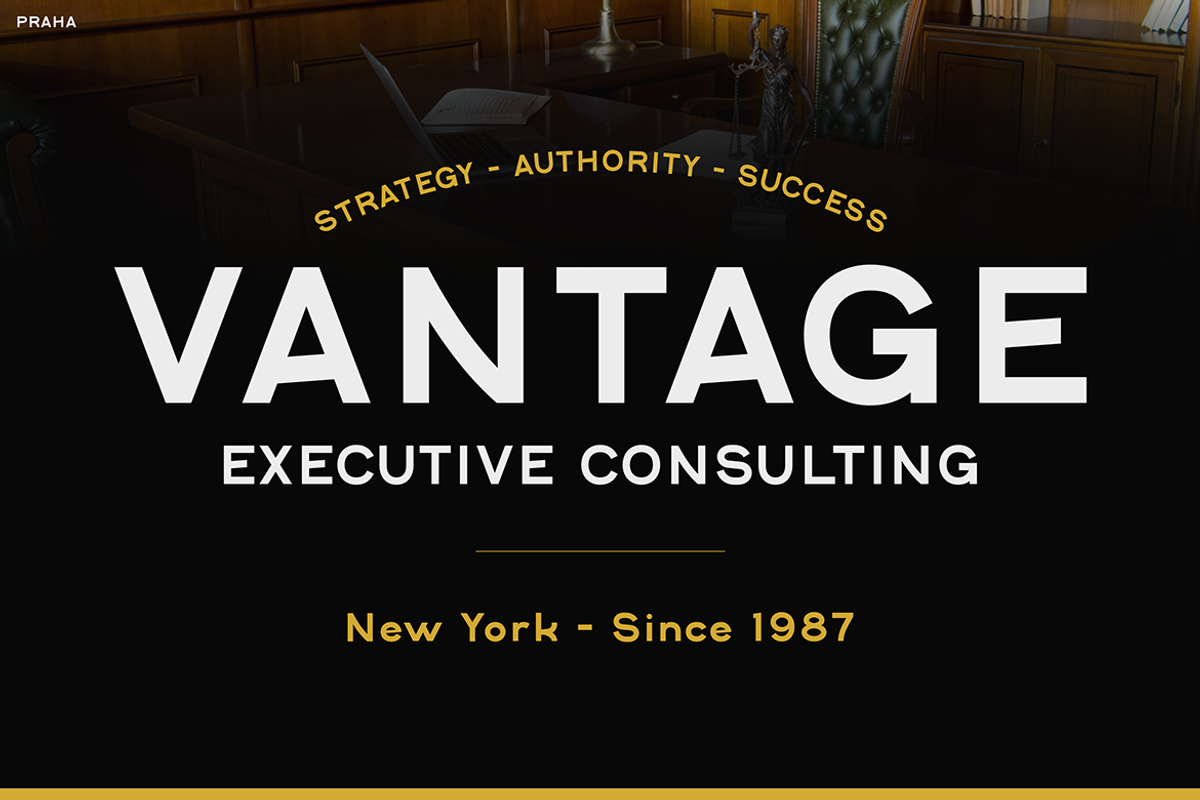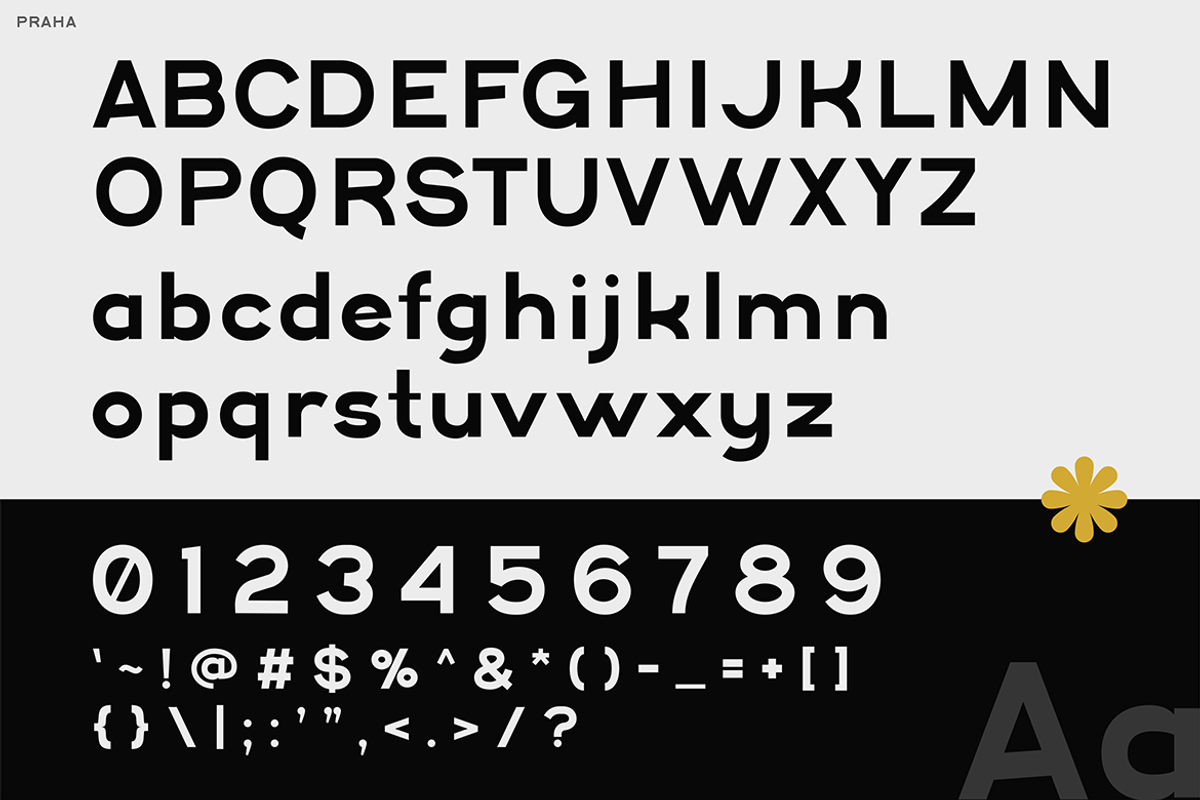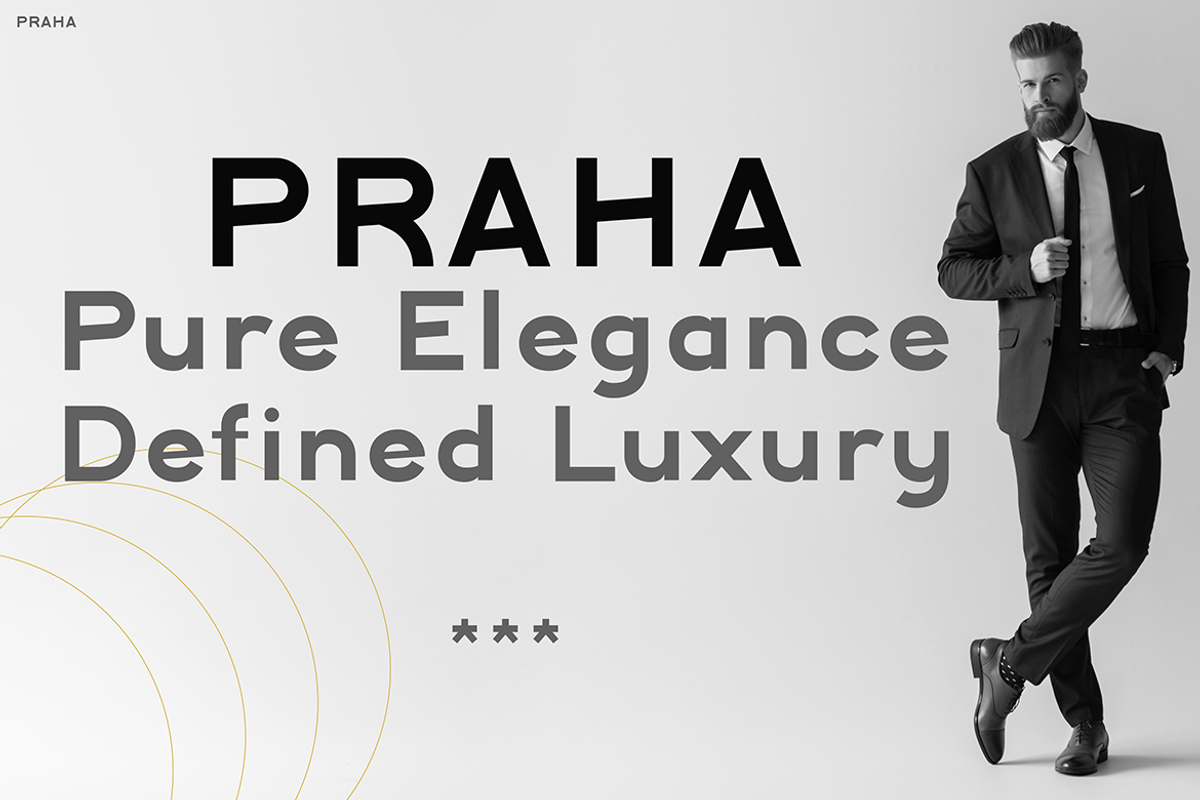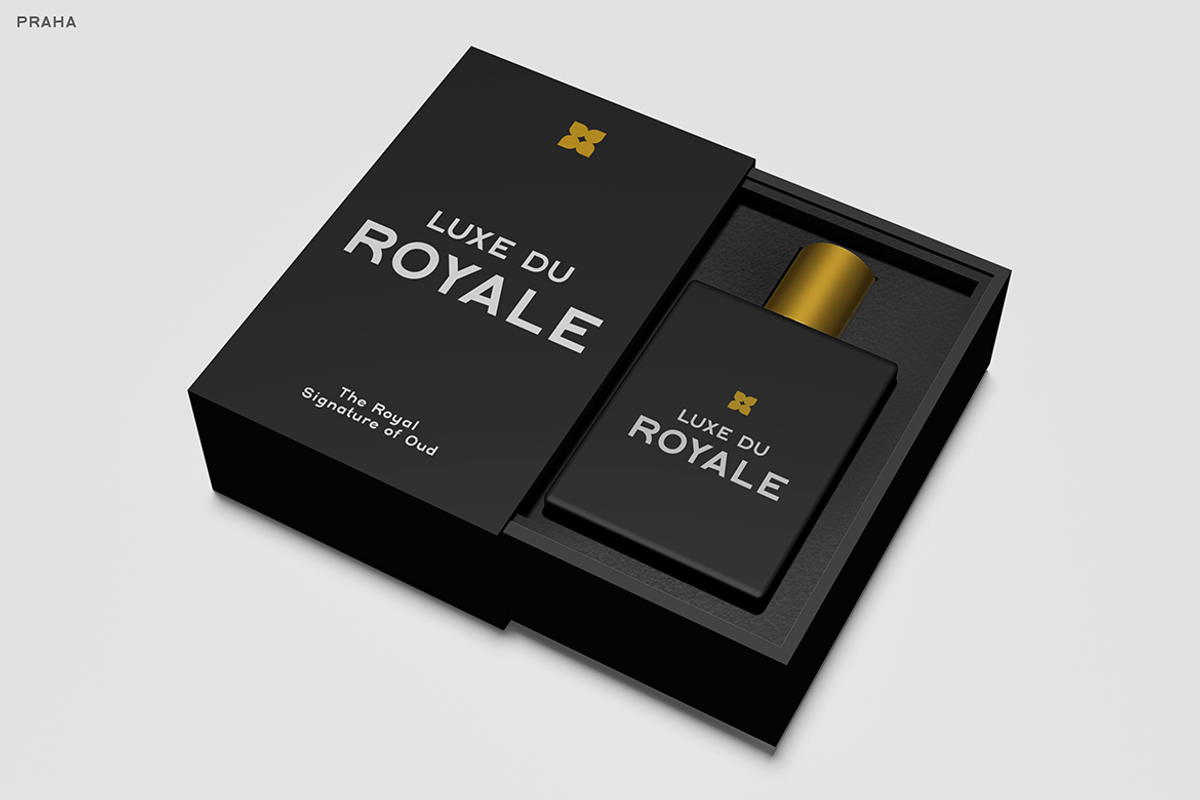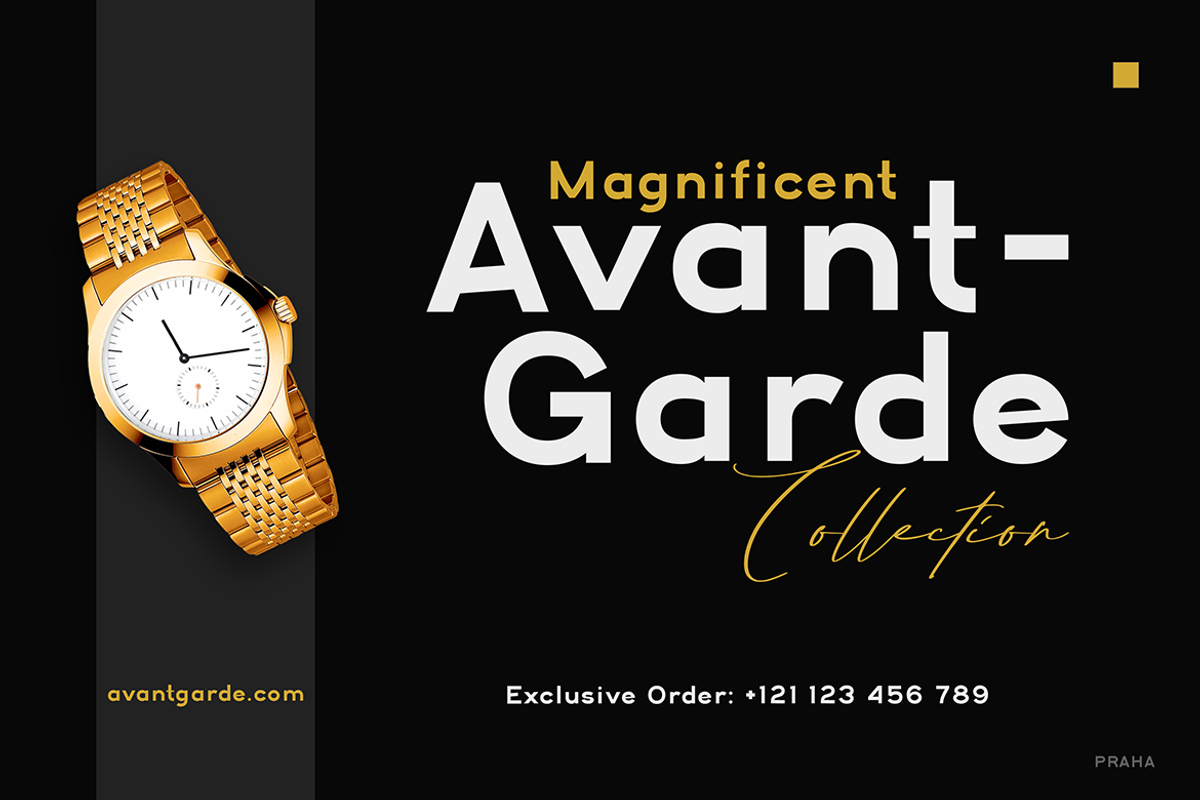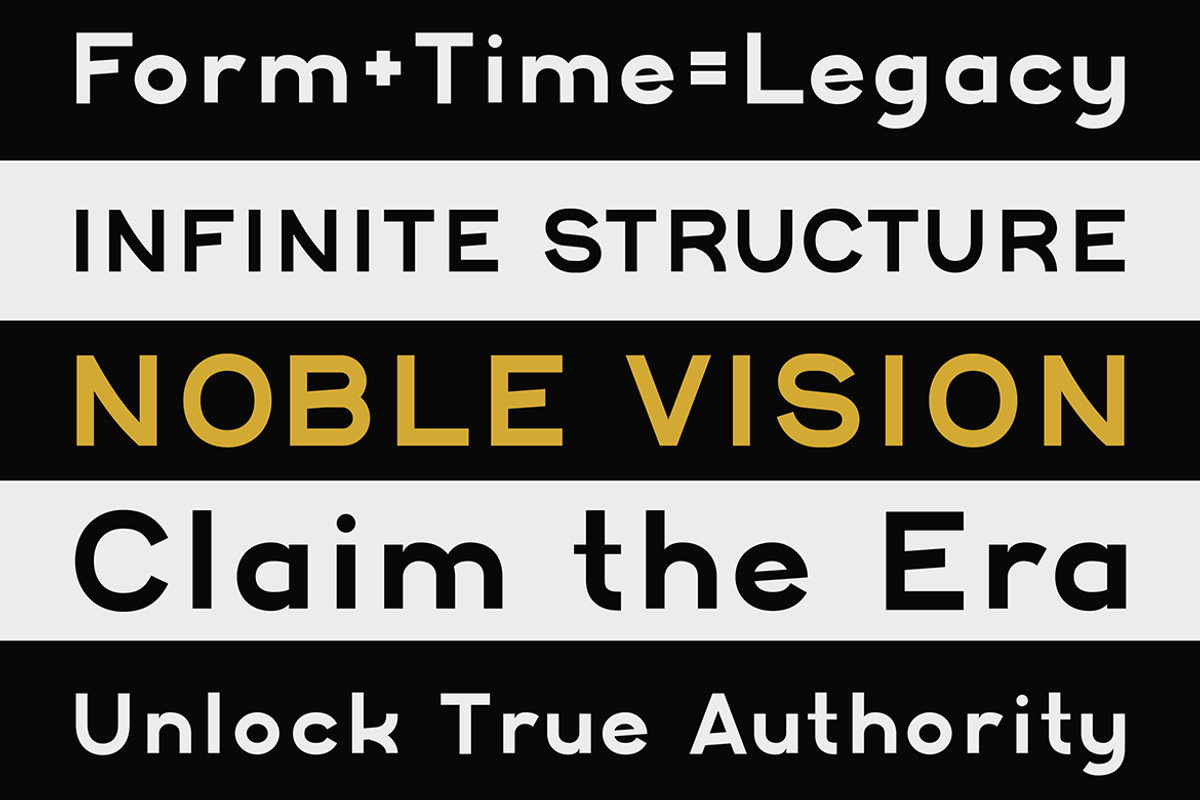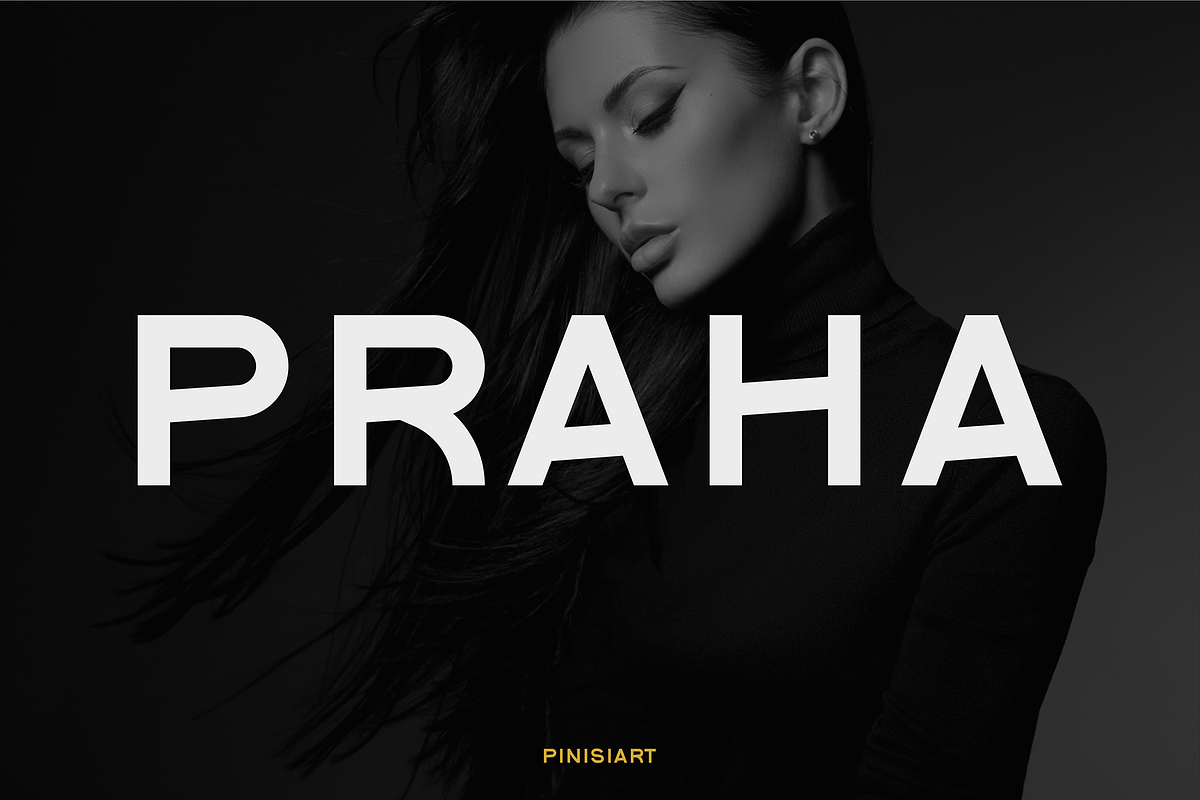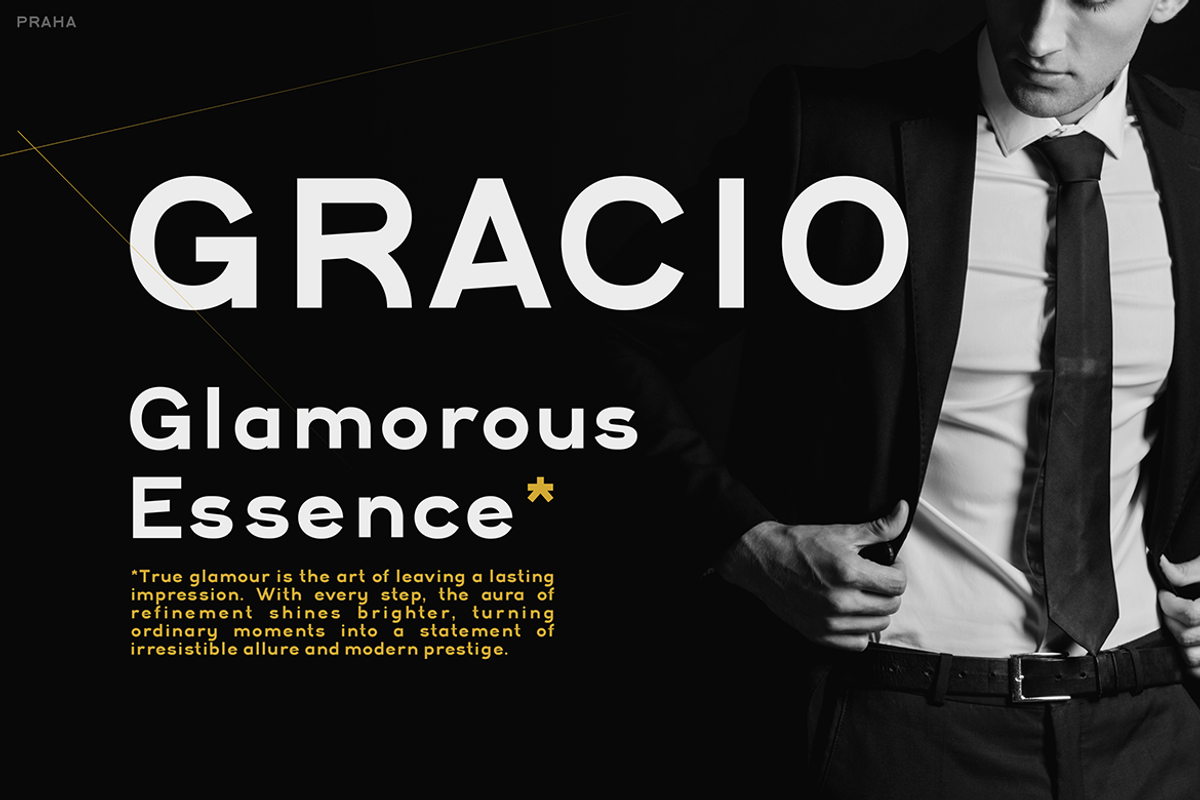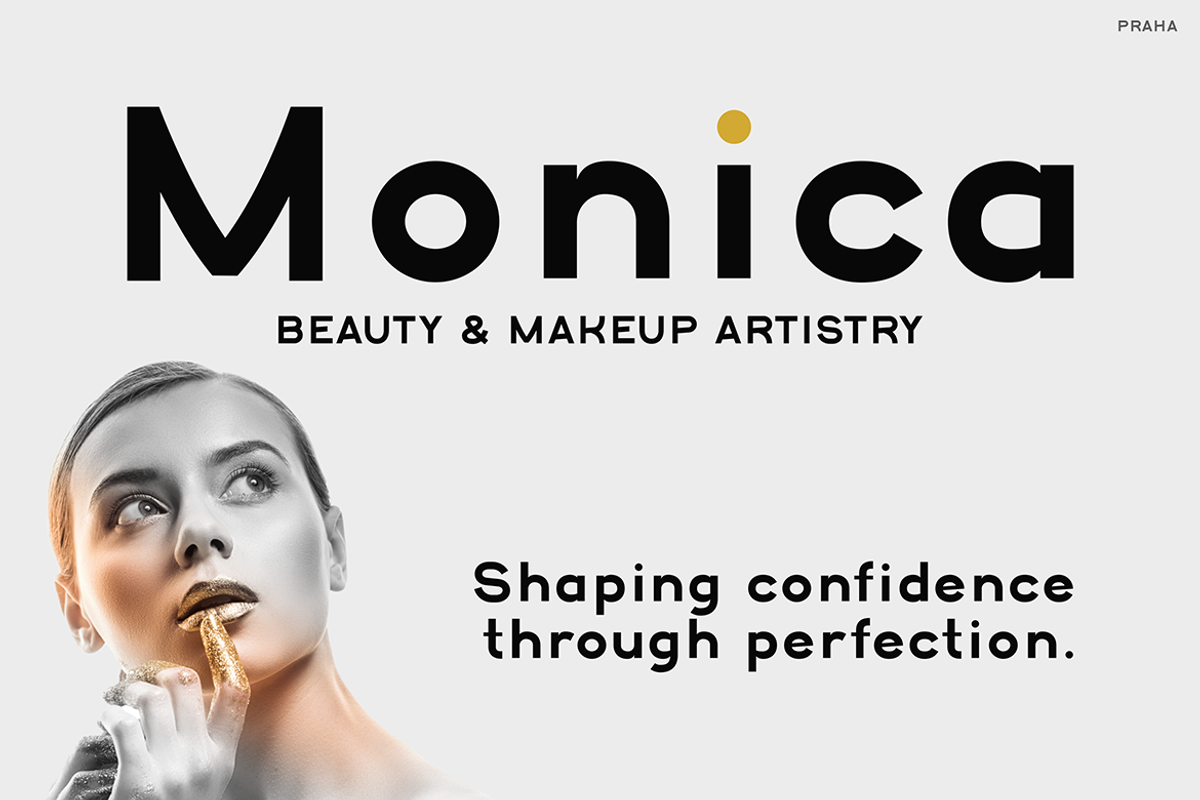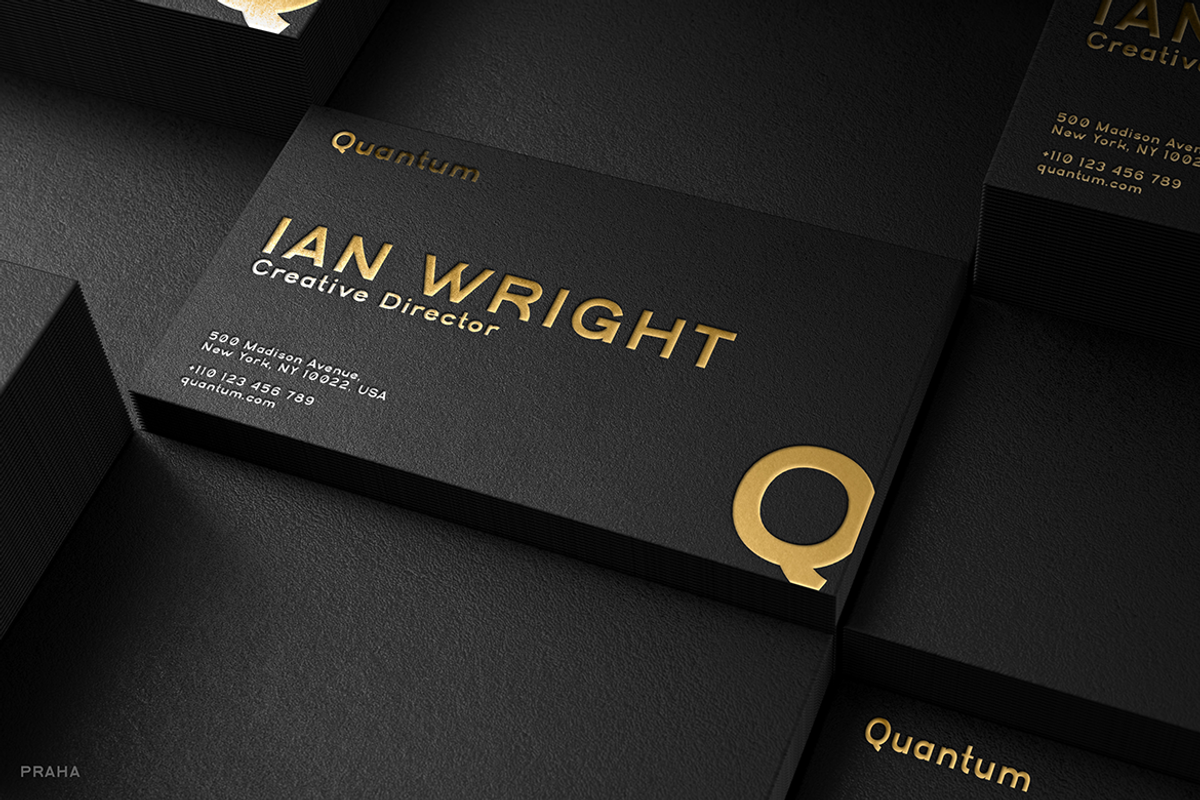
PRAHA
Pure Elegance Meets Modern Functionality
Instagram Font PRAHA is more than just a typeface—it’s a statement of luxury, modernity, and timeless style. Designed with sleek lines, balanced proportions, and a touch of European sophistication, PRAHA captures the essence of minimal elegance while staying versatile for multiple design needs. What makes this font unique is its ability to look both bold and refined, making it a powerful choice for branding, high-end packaging, social media posts, and editorial layouts. Each letterform reflects precision and confidence, giving your projects a polished, professional aesthetic that instantly elevates any visual composition. Whether you’re aiming for stylish Instagram graphics, chic product branding, or impactful advertising, this font provides the perfect balance between beauty and clarity.